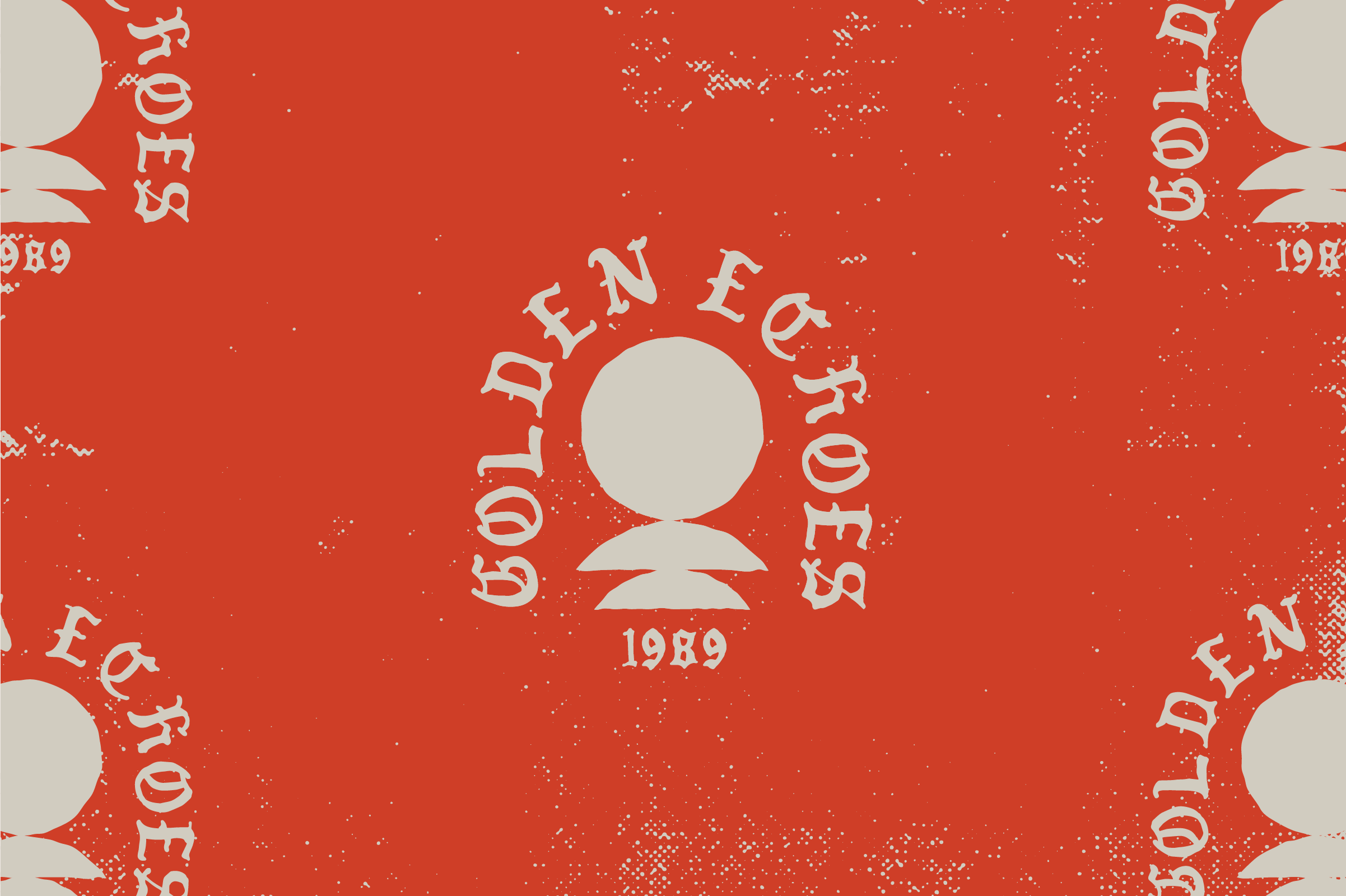
Golden Echoes 1989 Typeface
Golden Echoes is a hand-drawn, black letter typeface modelled after late 1980s punk fliers. Used right it can get you anywhere from doomy to whimsical.
Upper and lowercase alphabet. Numbers 0-9 Limited glyphs. .,-!?